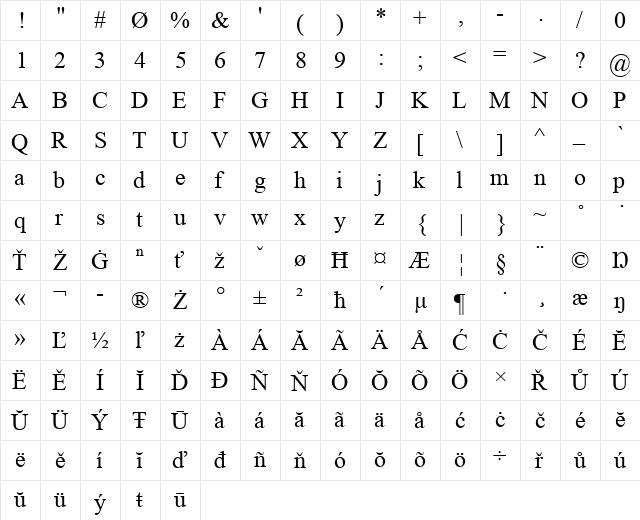
Shahanshah e Xatt Regular Font Preview
Shahanshah e Xatt Regular
Design Context for Shahanshah e Xatt Typeface
Shahanshah e Xatt takes a measured approach to typography — its balanced proportions and neutral character make it a reliable workhorse for both digital and print work.